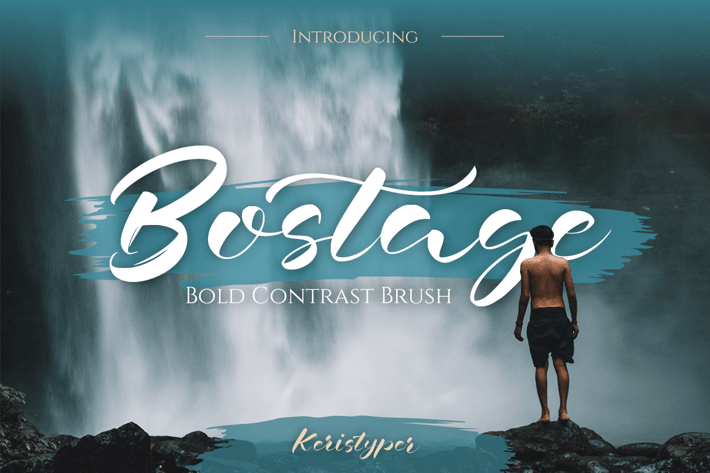
Bostega Font
kerismaker
Bostega is a handwritten script display font with bold contrast strokes. This font is good for logo design, Social media, Movie Titles, Books Titles, short text even long text letters, and good for your secondary text font with script, sans, or serif.
Standard Uppercase & Lowercase
Multilingual : ä ö ü Ä Ö Ü ß ¿ ¡
Alternate & Ligature